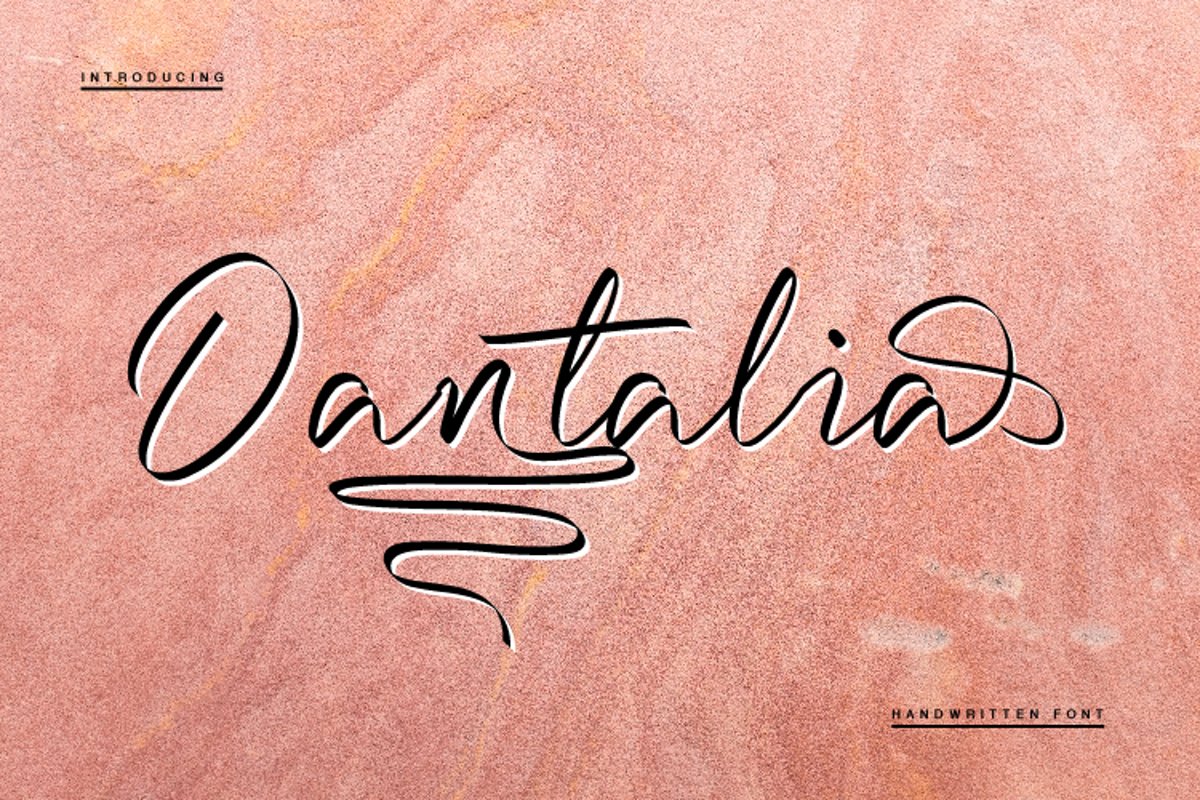
Dantalia - Handwritten Font
Dantalia
Dantalia is handwritten font. We created it for two more weeks. Dantali is perfect for your any project design such as poster, logoname, typography, lettering, wedding design, invitaion, etc